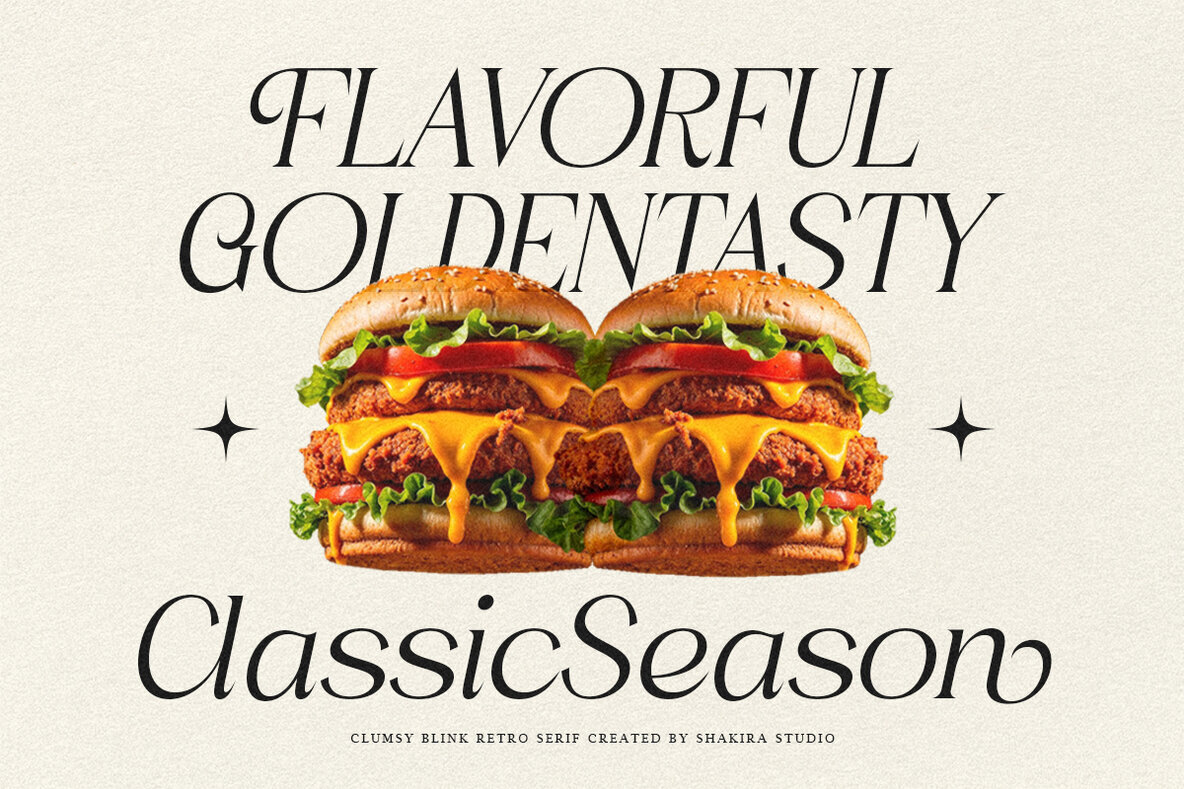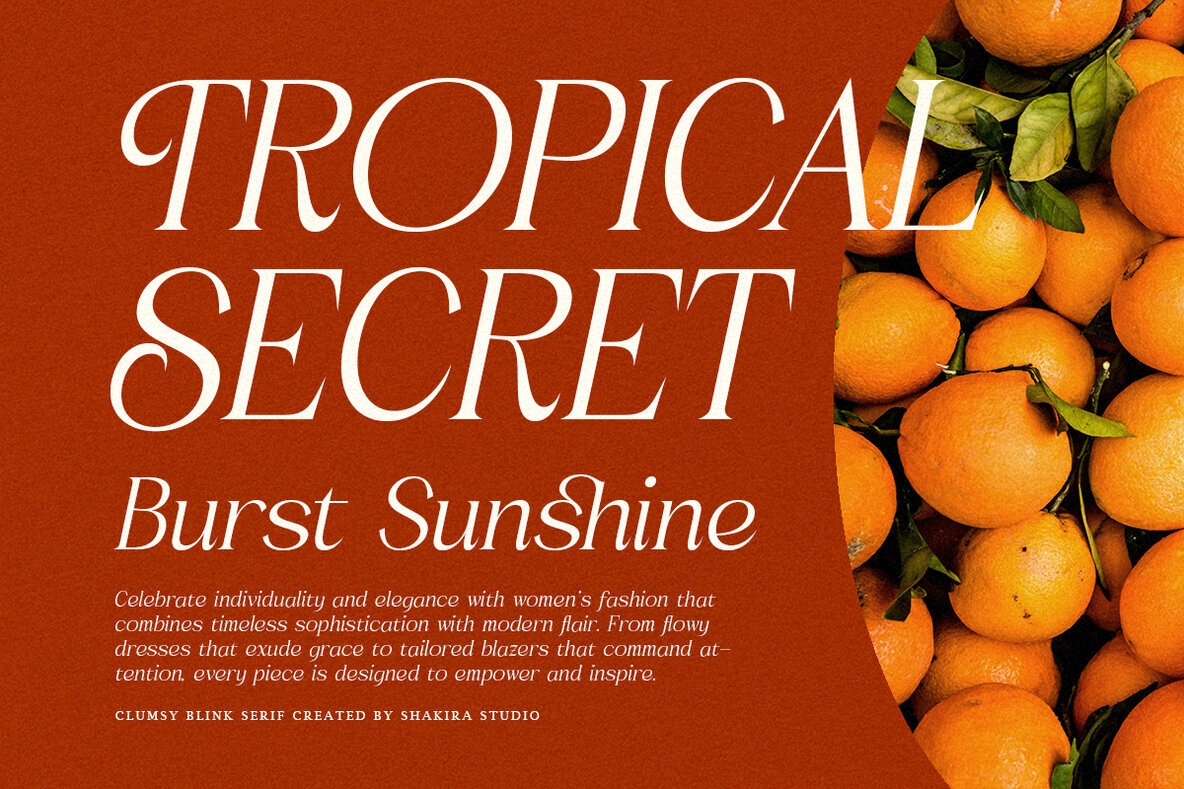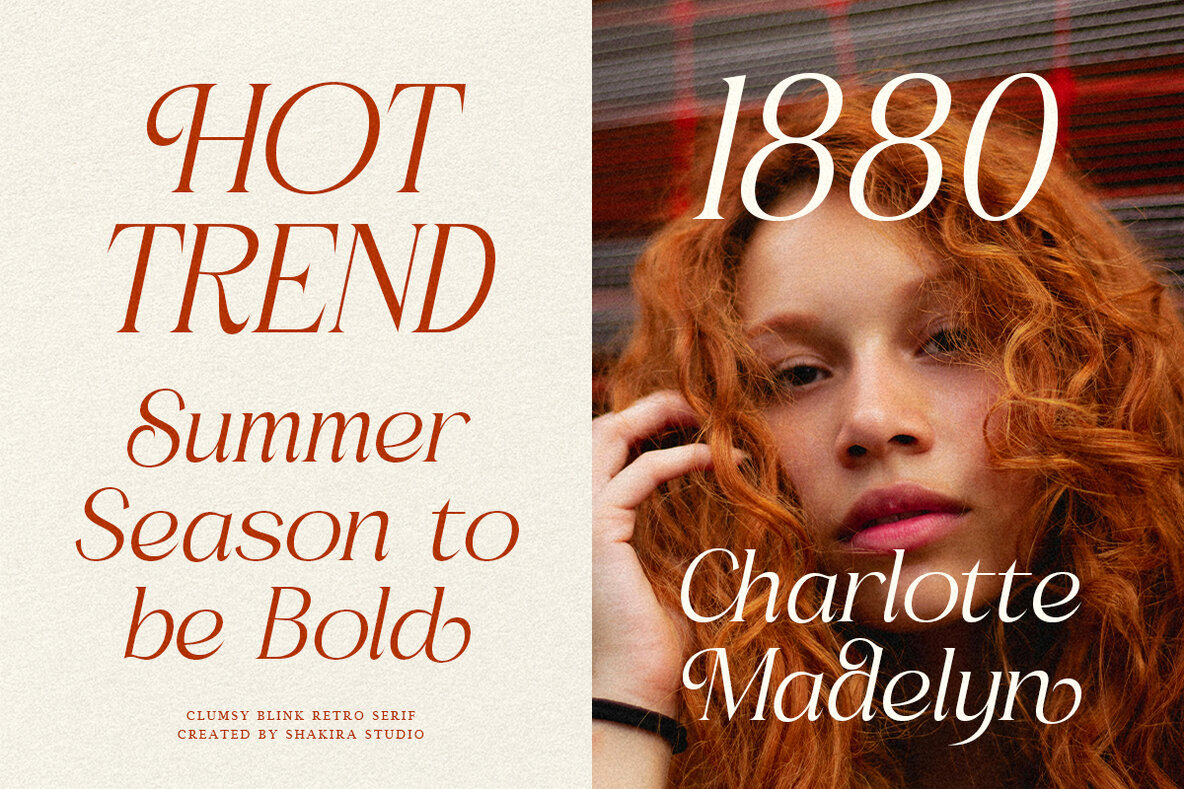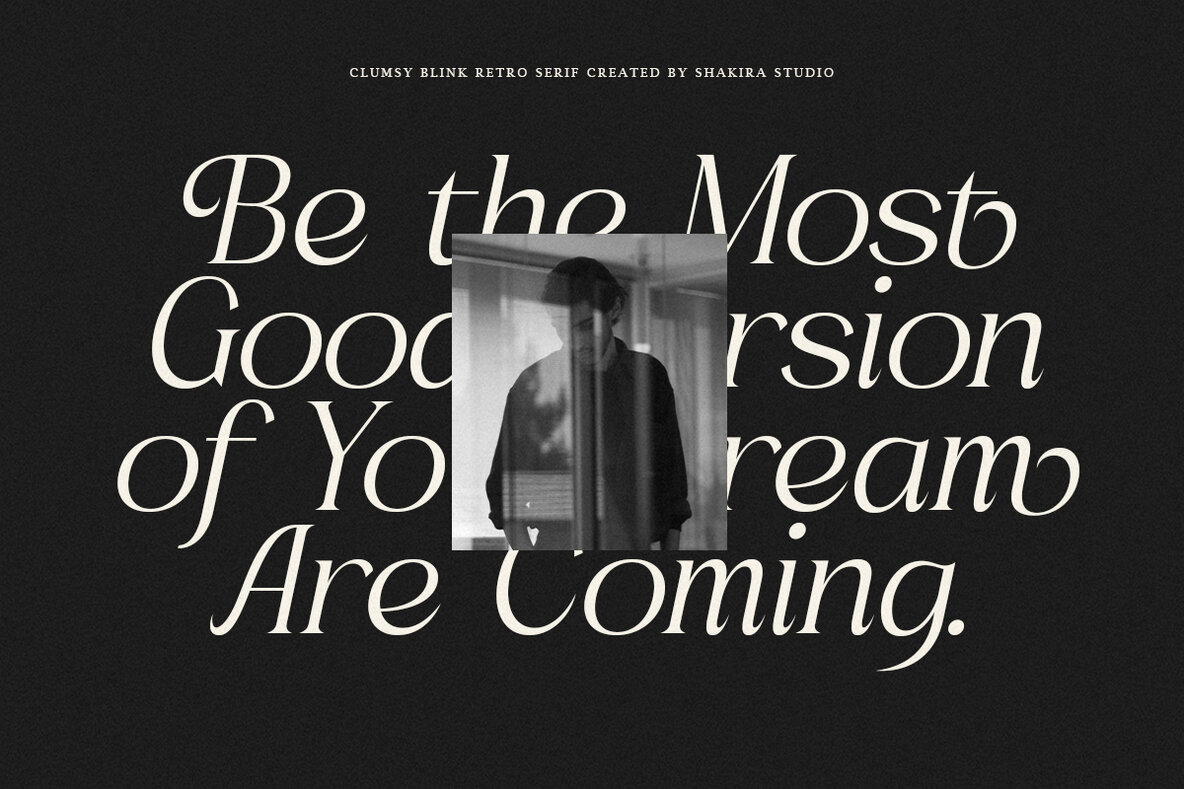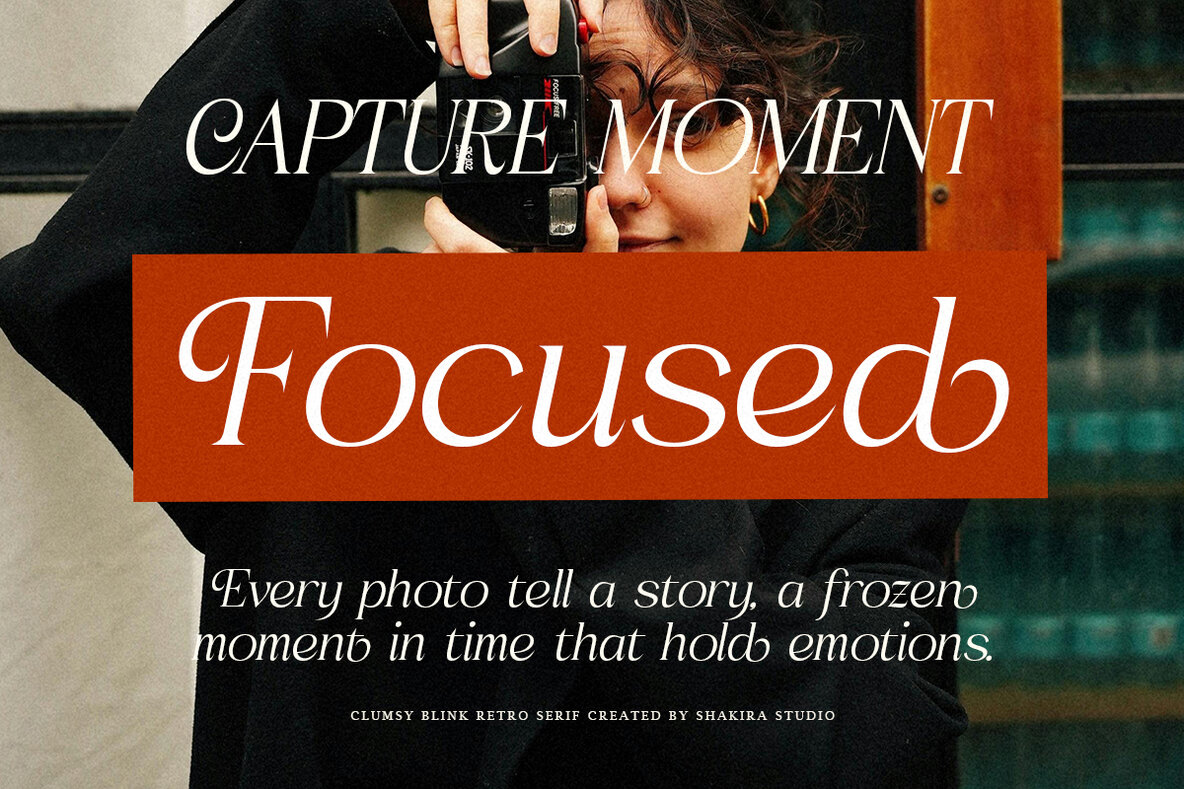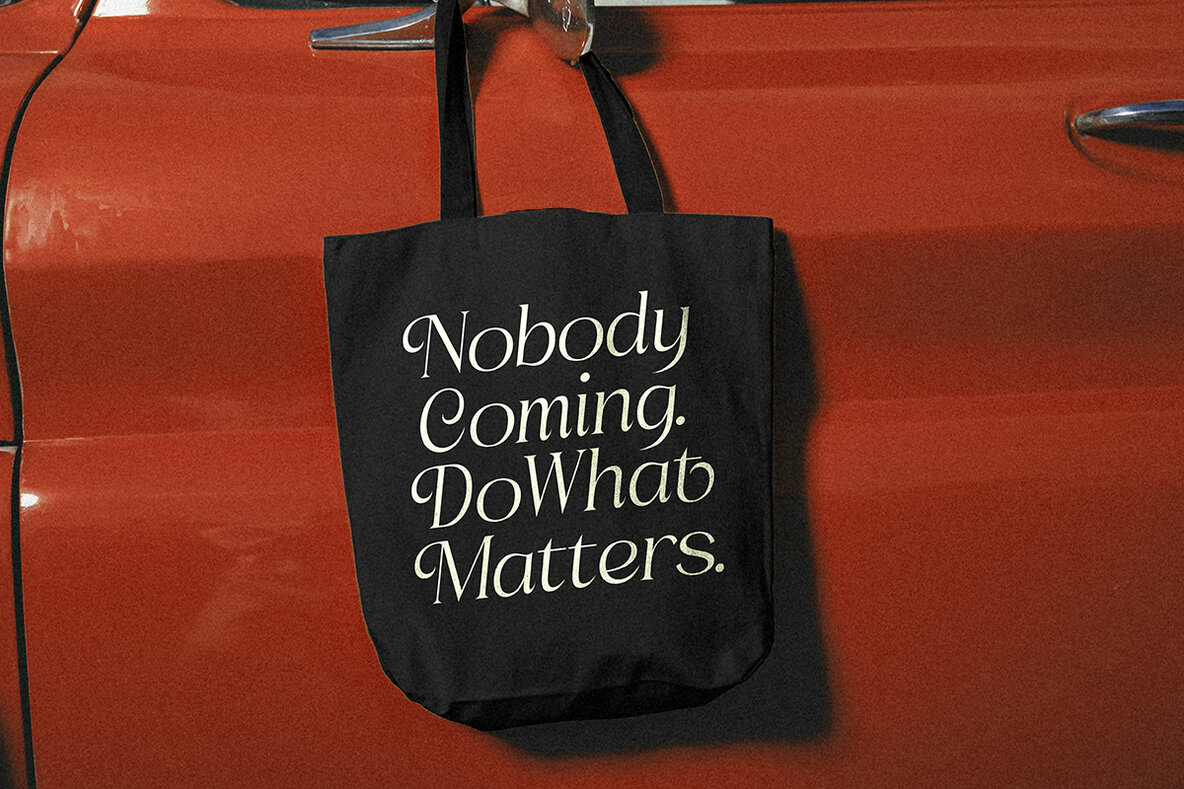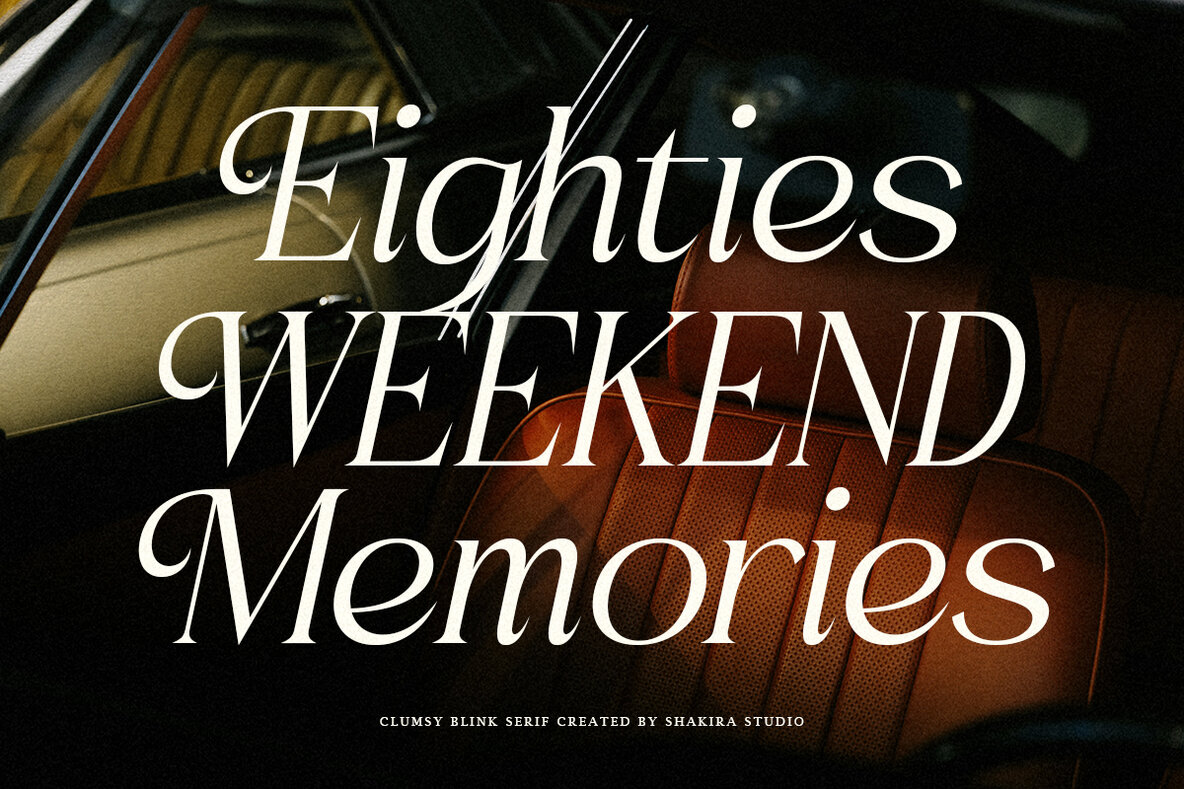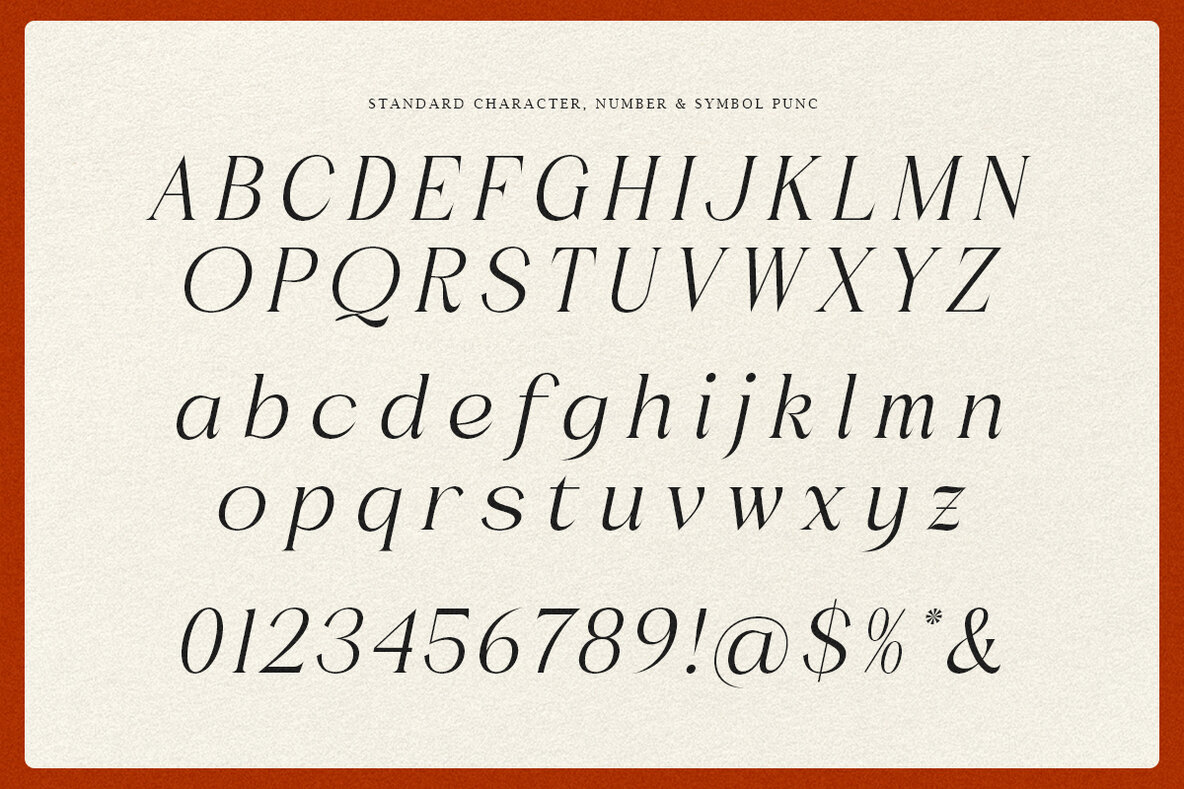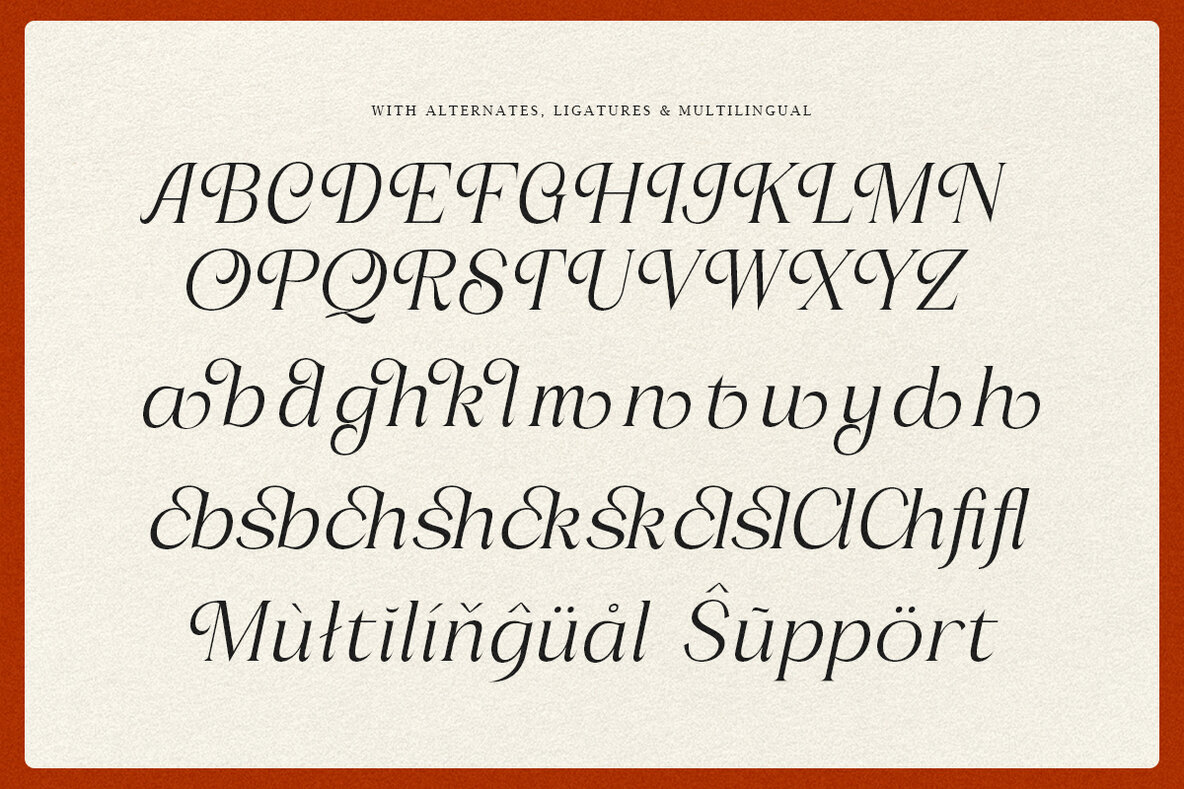
Clumsy Blink Font
Clumsy Blink Regular
Clumsy Blink Italic
Clumsy Blink is more than just a font—it's a trip back to the vibrant and bold era of the 70s. With its retro serif design, this font captures the essence of nostalgia while offering modern versatility. Available in regular and italic versions, Clumsy Blink is perfect for branding, logo design, packaging, posters, and more. Whether you're crafting a vintage-inspired logo or designing a standout poster, this font ensures your work radiates the charm and energy of the 70s. Clumsy Blink stands out with its bold, stylish alternates and ligatures, offering endless creative possibilities. Its versatility makes it ideal for projects that demand a retro-inspired look, from corporate branding to creative packaging and posters. This font isn't just a tool—it's a statement of creativity and nostalgia. Clumsy Blink isn't just a font—it's a tool to transform your creative projects into bold, retro-inspired masterpieces. Whether you're designing for print, digital, or branding, this font ensures your work stands out with confidence and style. Ready to make a bold statement? Add Clumsy Blink to your collection today and let your designs shine with 70s nostalgic elegance!Clumsy Blink: Retro Serif Font with 70s Nostalgic Vibes
Where Retro Nostalgia Meets Modern Creativity